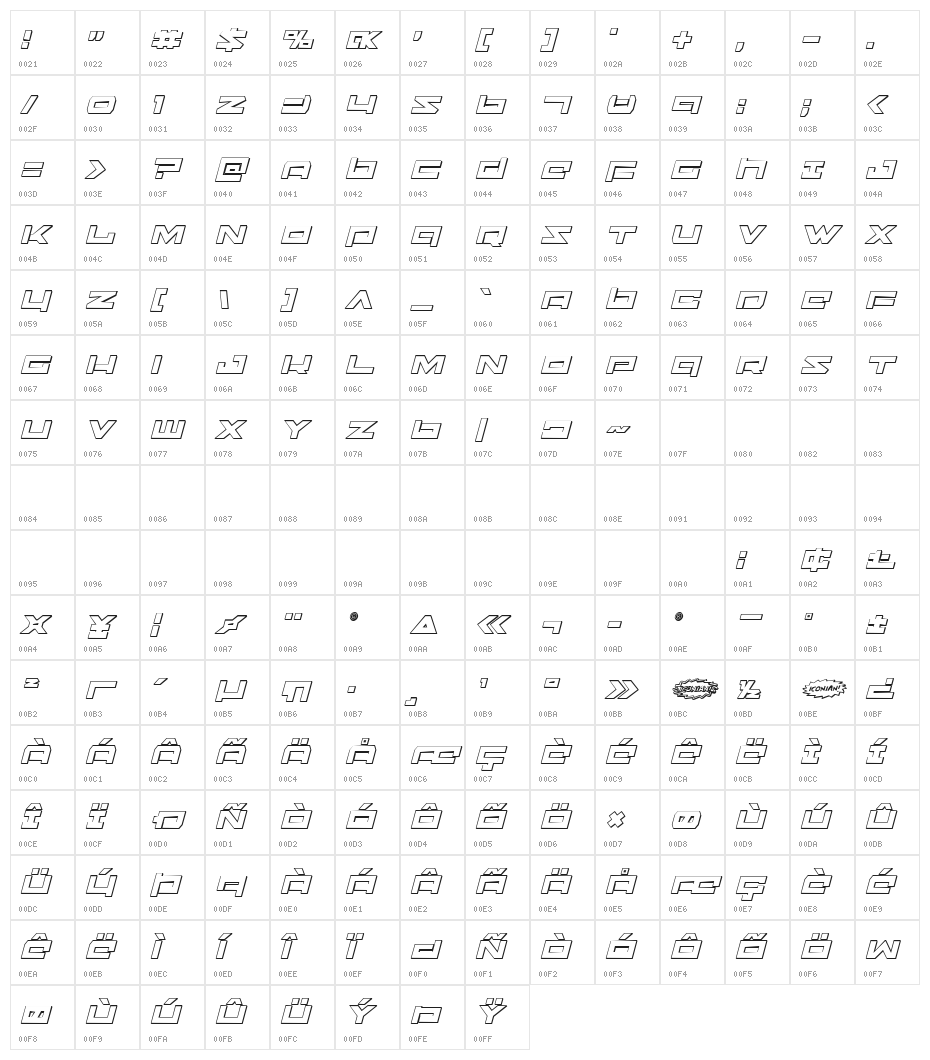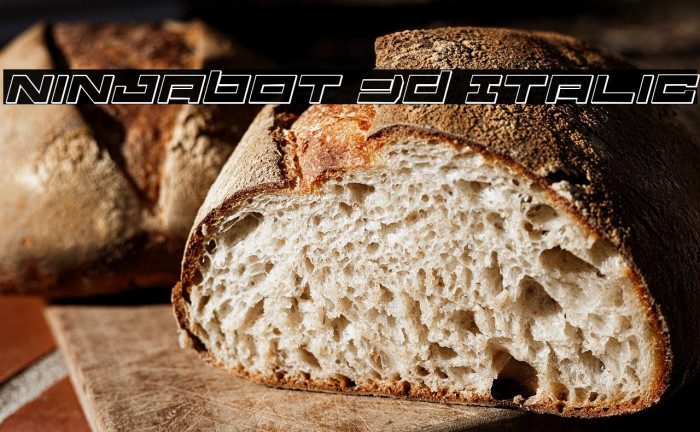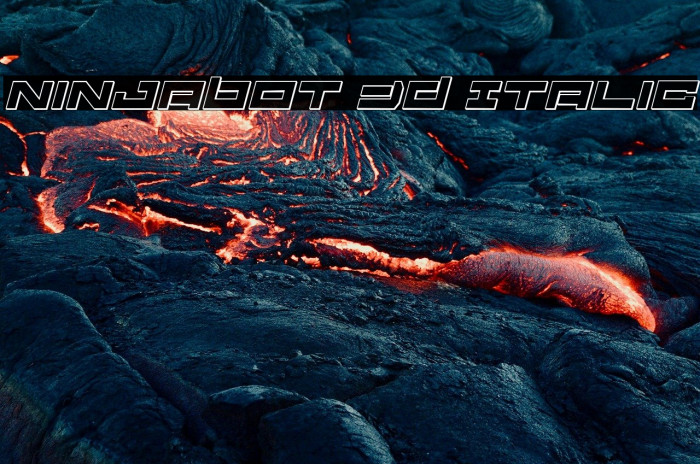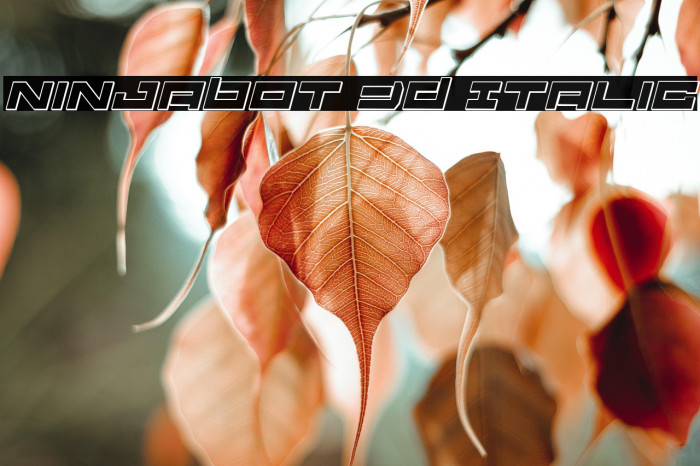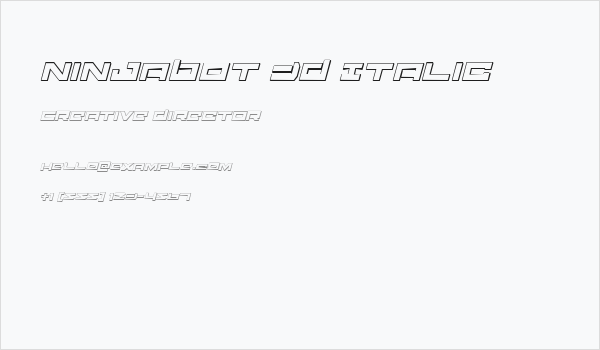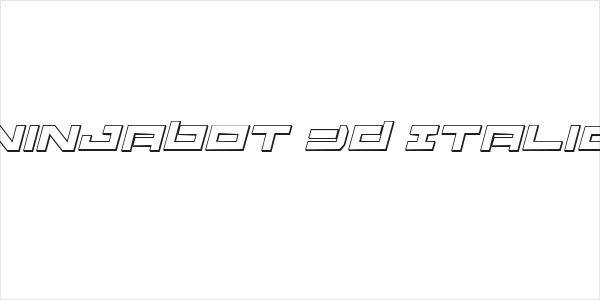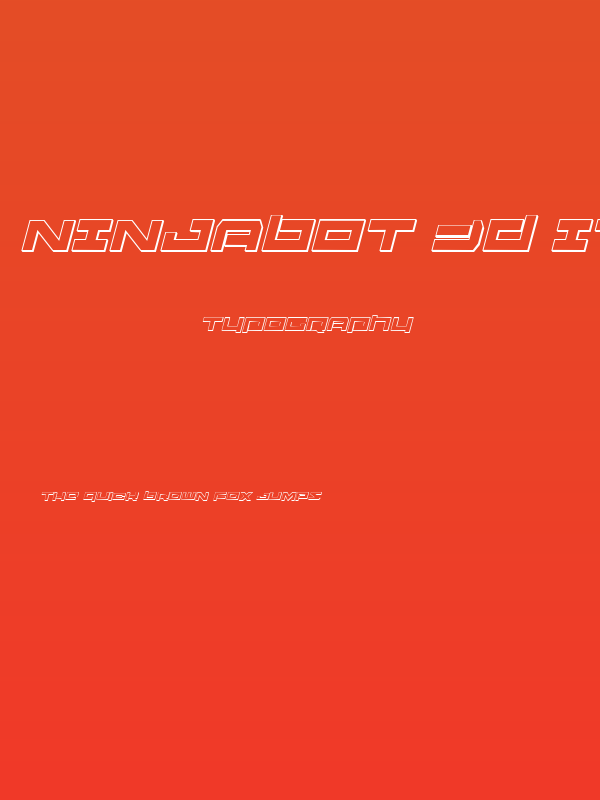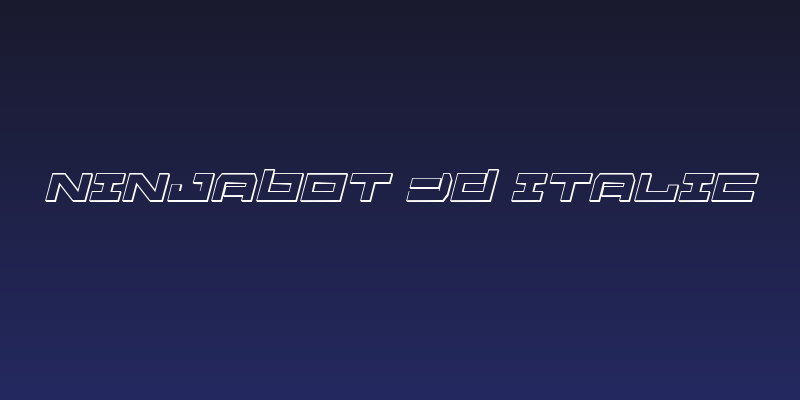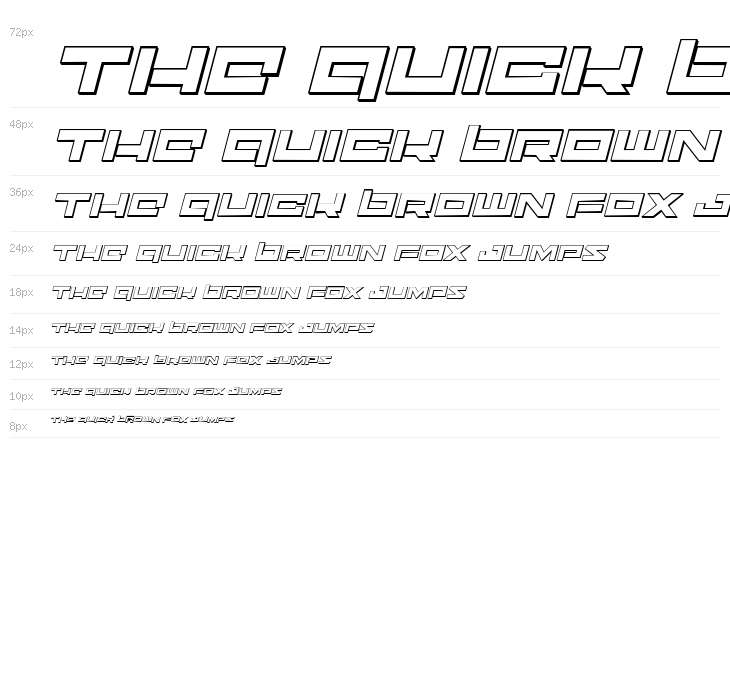
Ninjabot 3D Italic Font
Ninjabot 3D Italic Description
This font features a futuristic and angular design with a 3D effect, giving it a dynamic and modern appearance. The characters are outlined, creating a sense of depth and dimension. The italic style adds a forward-leaning motion, enhancing its energetic and tech-inspired look. Each letter is constructed with sharp edges and geometric shapes, making it stand out as a bold statement. The spacing between characters is consistent, maintaining readability while emphasizing its unique style. This font is ideal for projects that require a modern, tech-savvy aesthetic.
| Proposed Projects | Ideal for tech branding, video game titles, sci-fi posters, and digital media. |